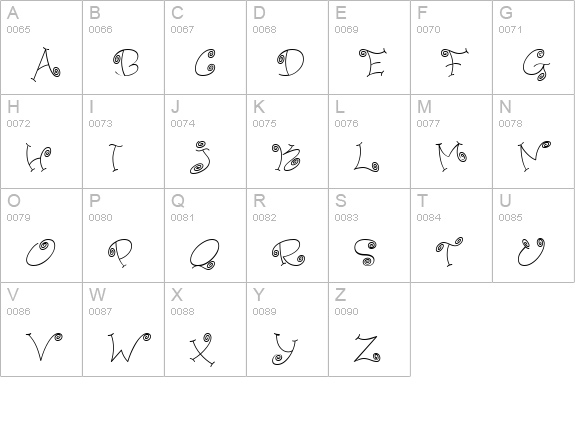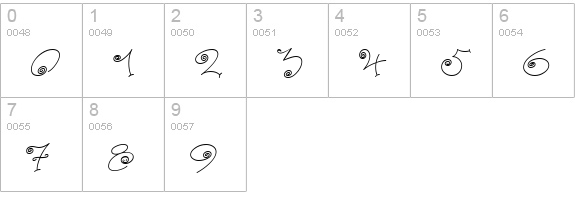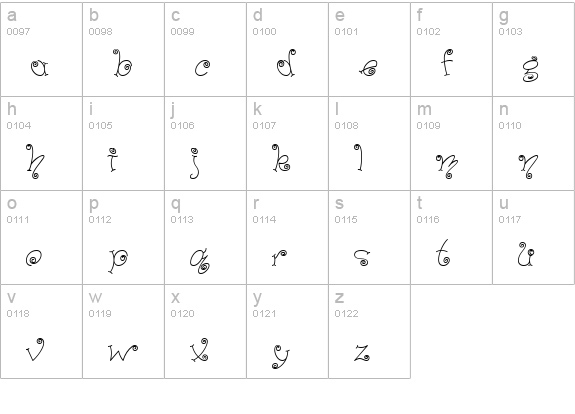
PFSwinger Slim Font Details
The PFSwinger Slim font is a sleek and modern typeface that exudes elegance and sophistication. Its slim and stylish design makes it perfect for a wide range of design projects, from branding to editorial layouts. The clean lines and subtle curves of this font give it a timeless appeal that is sure to elevate any design it is used in. What's even better is that the PFSwinger Slim font is available for free download at FontsMarket.com. This means that you can easily access this beautiful typeface without any cost, making it a fantastic choice for designers looking to add a touch of sophistication to their work without breaking the bank. Whether you're working on a website, poster, or branding project, the PFSwinger Slim font is sure to make a lasting impression.